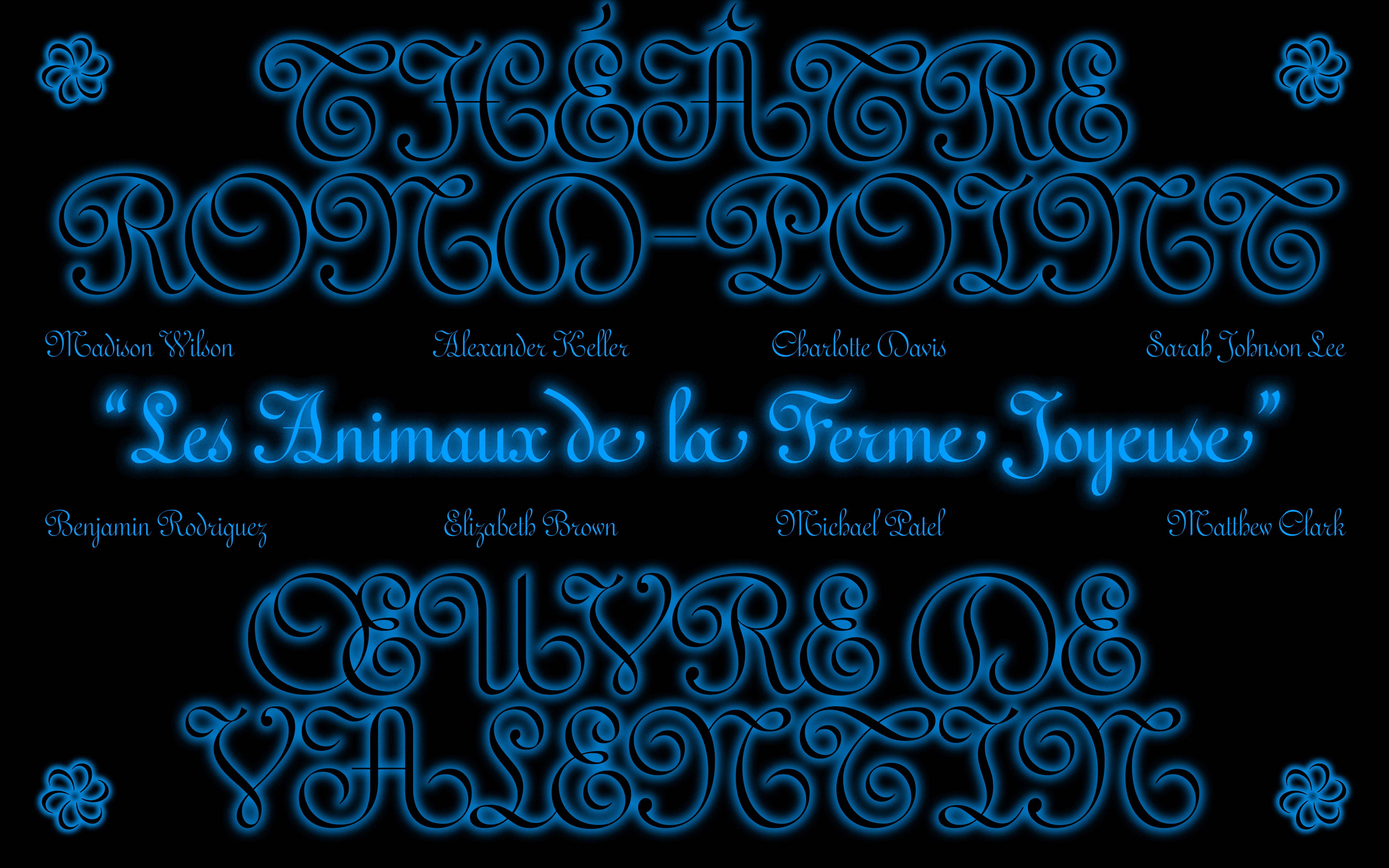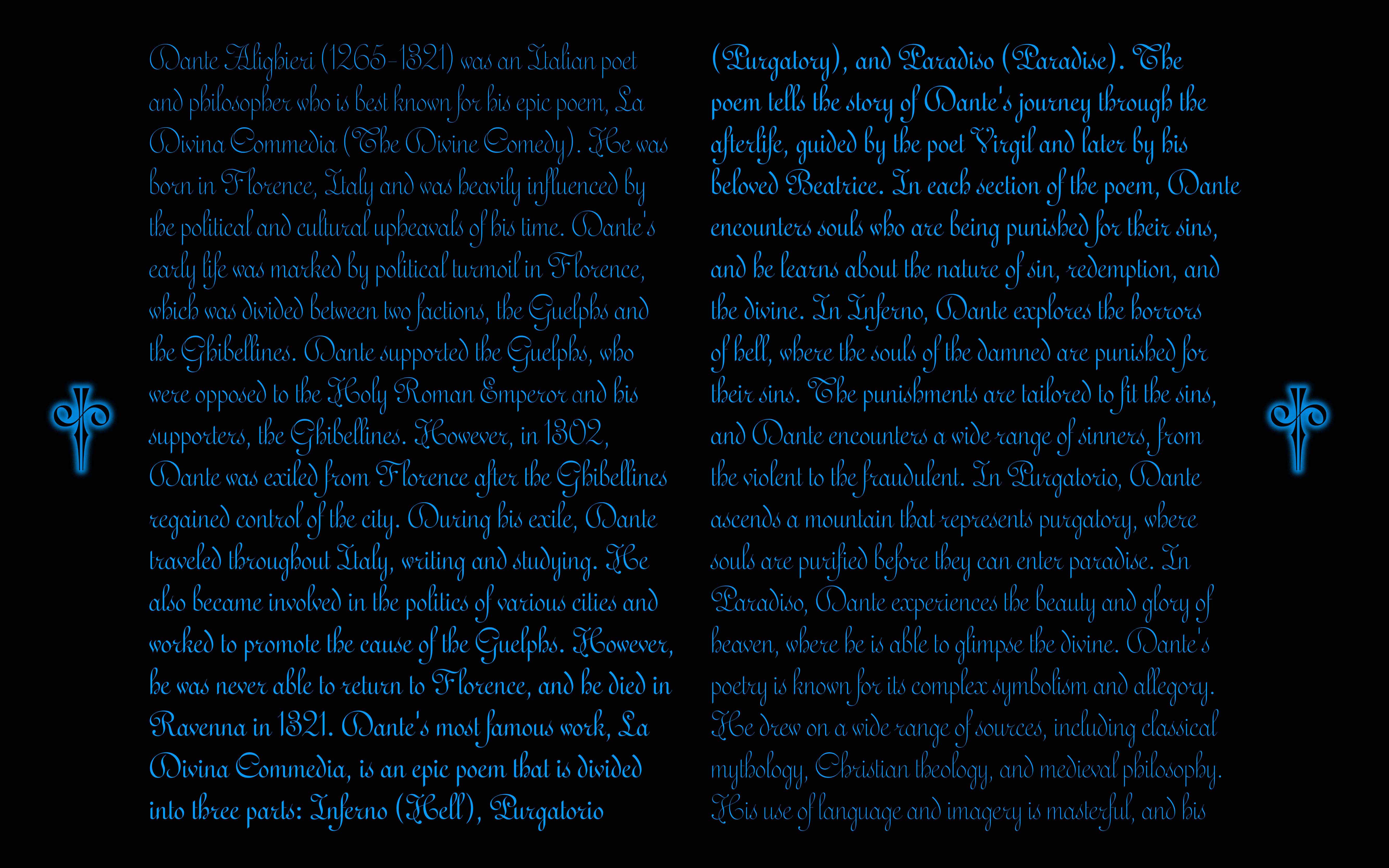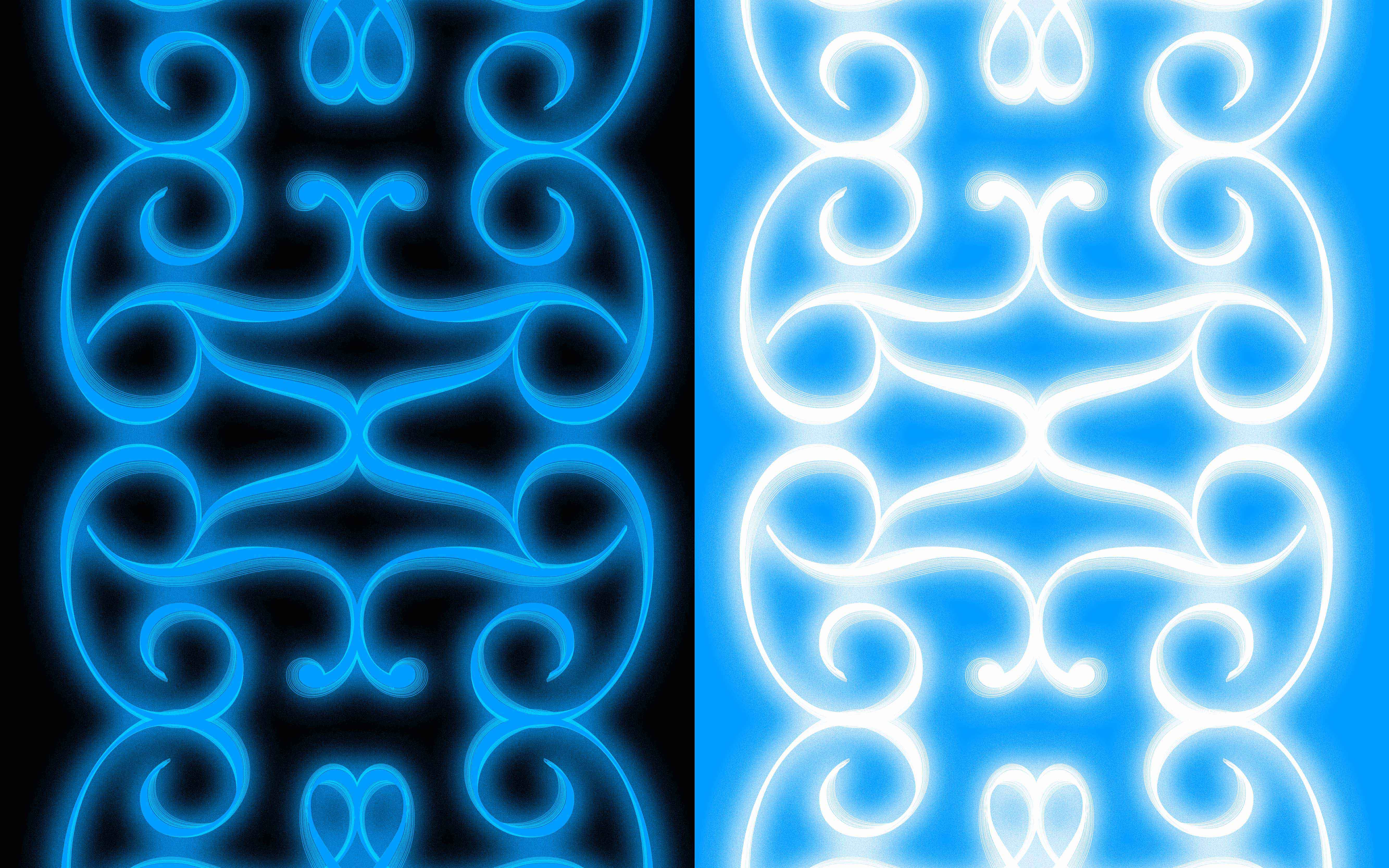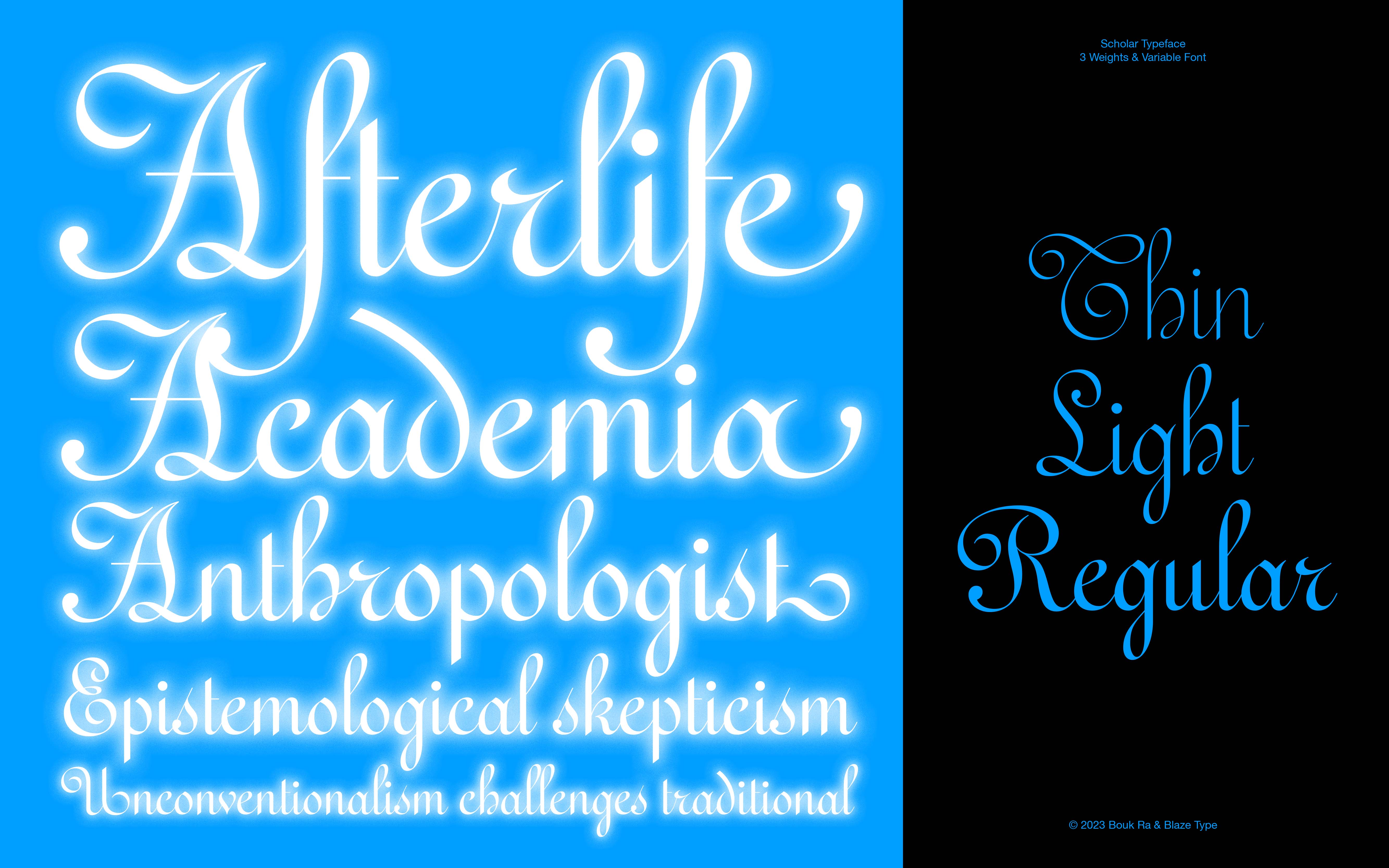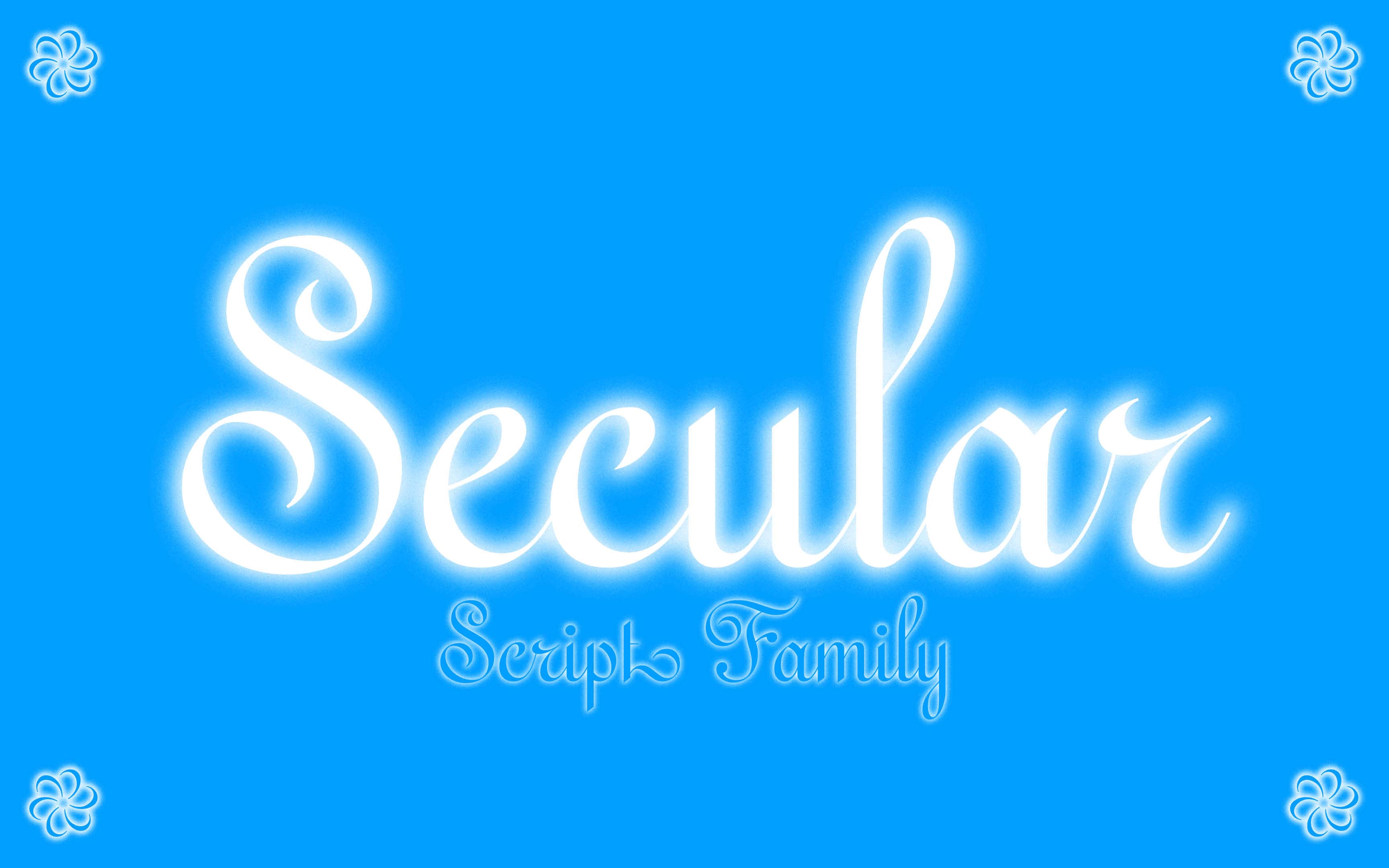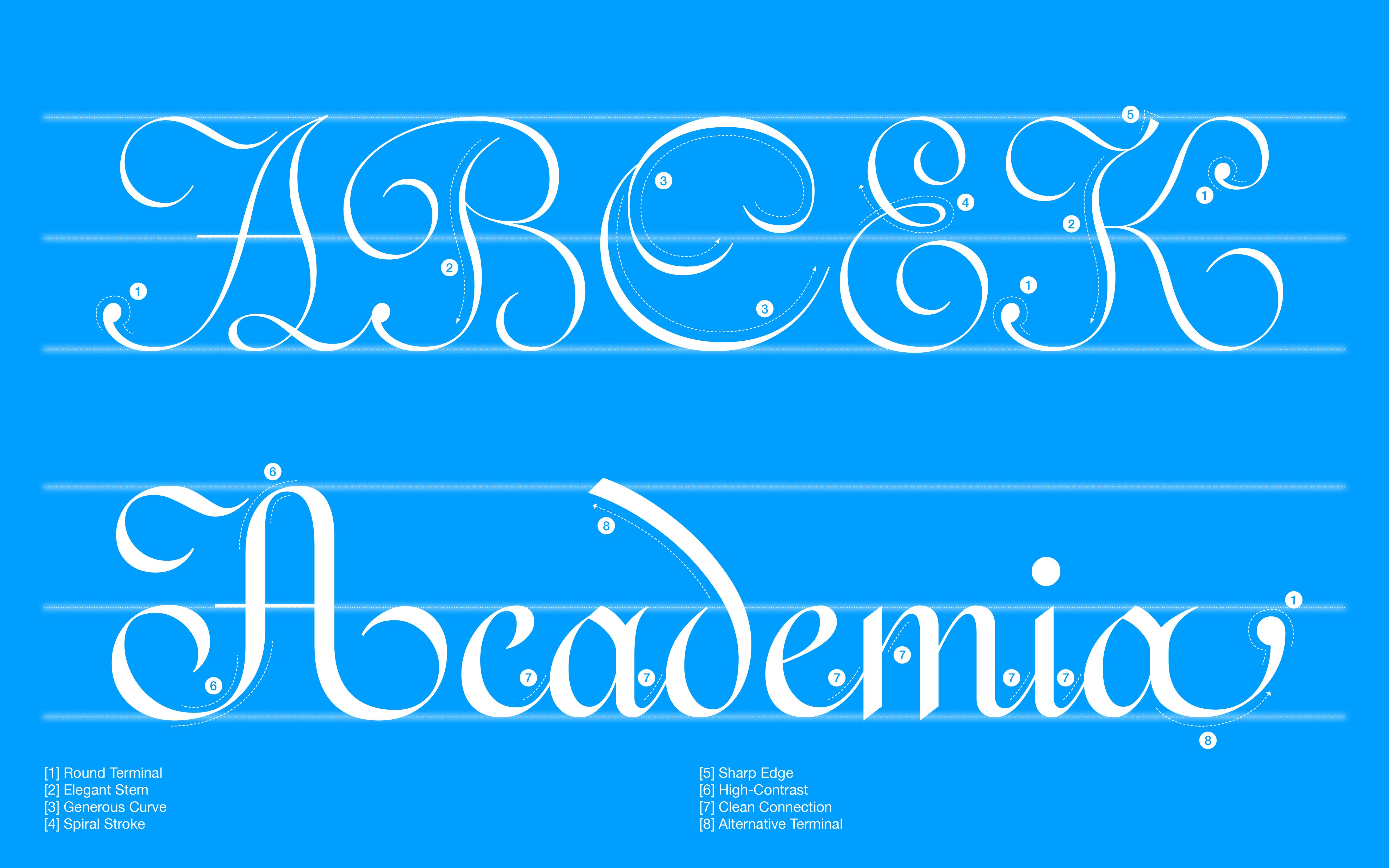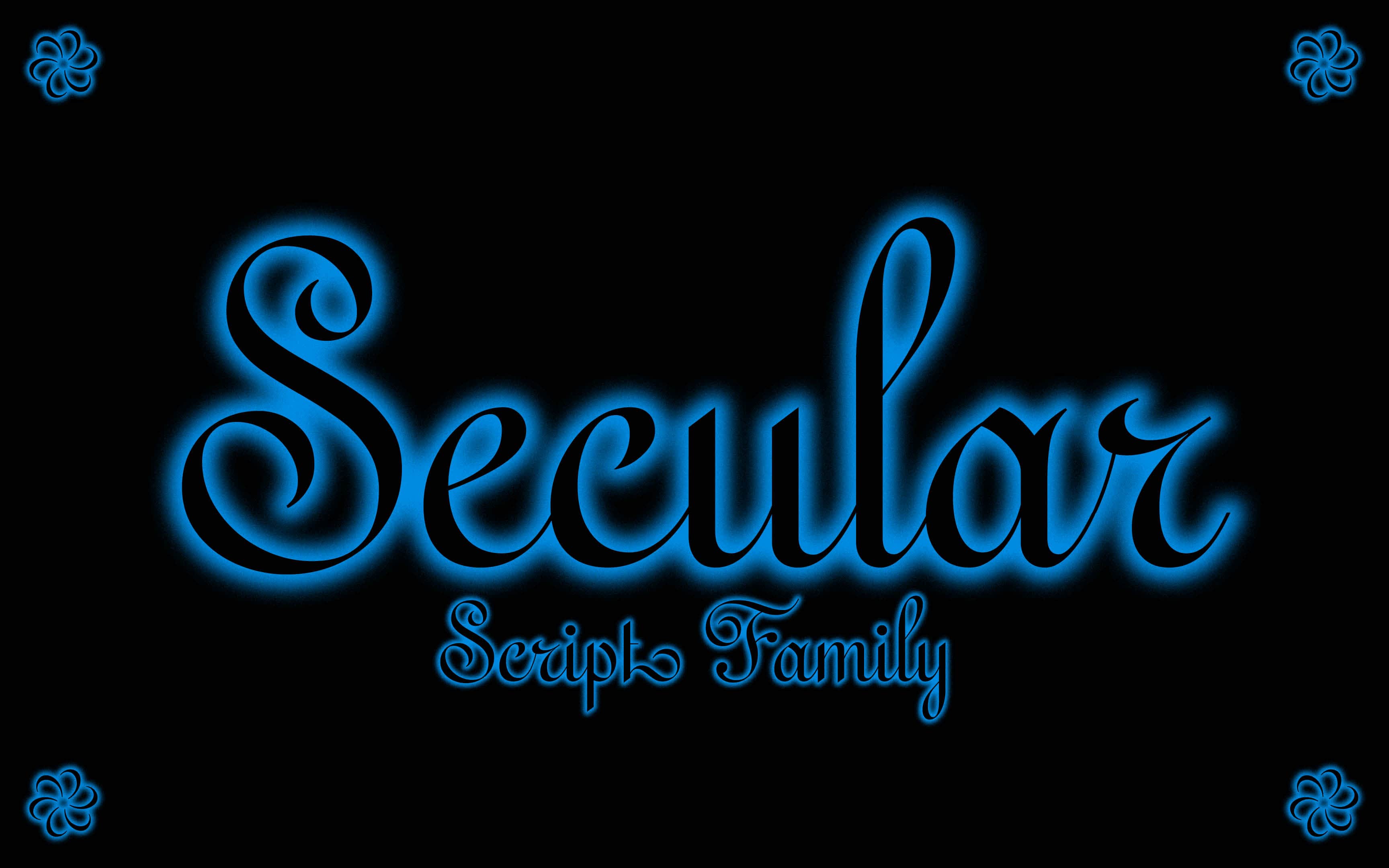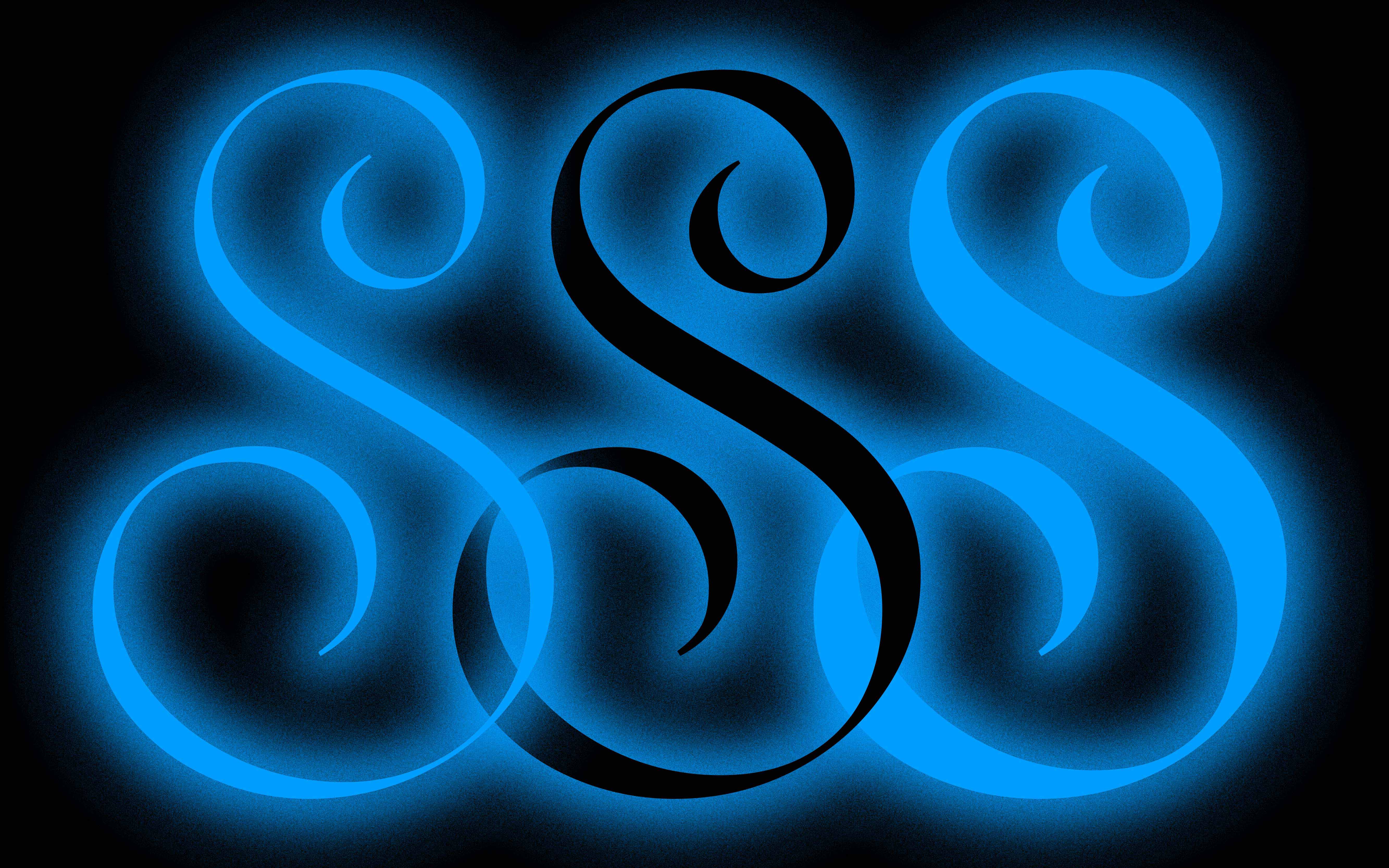
Secular
Secular Script is a typeface family drawing its inspiration from the classic French Ronde Scripts of the XVIIe to XXe century. It is an elegant and sophisticated set of fonts which come in three distinctive styles - Thin, Light, and Regular.
Each of these weights offer a unique and distinct atmosphere to any type layout. Designers who are looking to create elegant logotypes, headlines, and quotes that are both stylish and eye-catching will find Secular Script to be the perfect choice for their design needs.
The circular shapes of Secular's strokes is one of its most remarkable features, giving this elegant typeface a sense of grandeur that is sure to impress, much like the Ronde Scripts. The uppercase letters are noteworthy as their strokes are focused on a circular form, creating a splendid and refined feeling.
Secular Script provides designers with flexibility through its alternative and stylistic set glyphs, enabling them to create elegant, unique and customized designs. These Ronde Script inspired glyphs offer a wide range of options for designers to choose from, allowing them to create distinctive looks and feels. This typeface family will bring amazing quality to any headlines, posters, titles it's being used on.